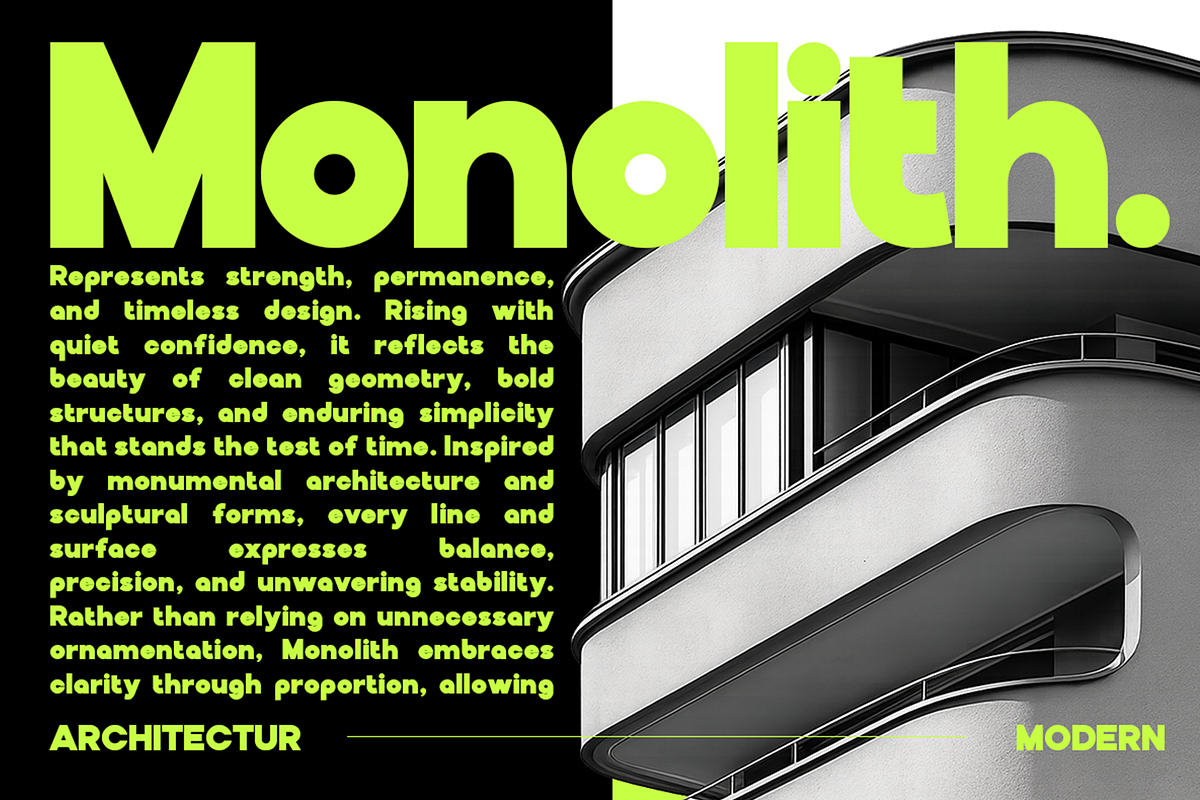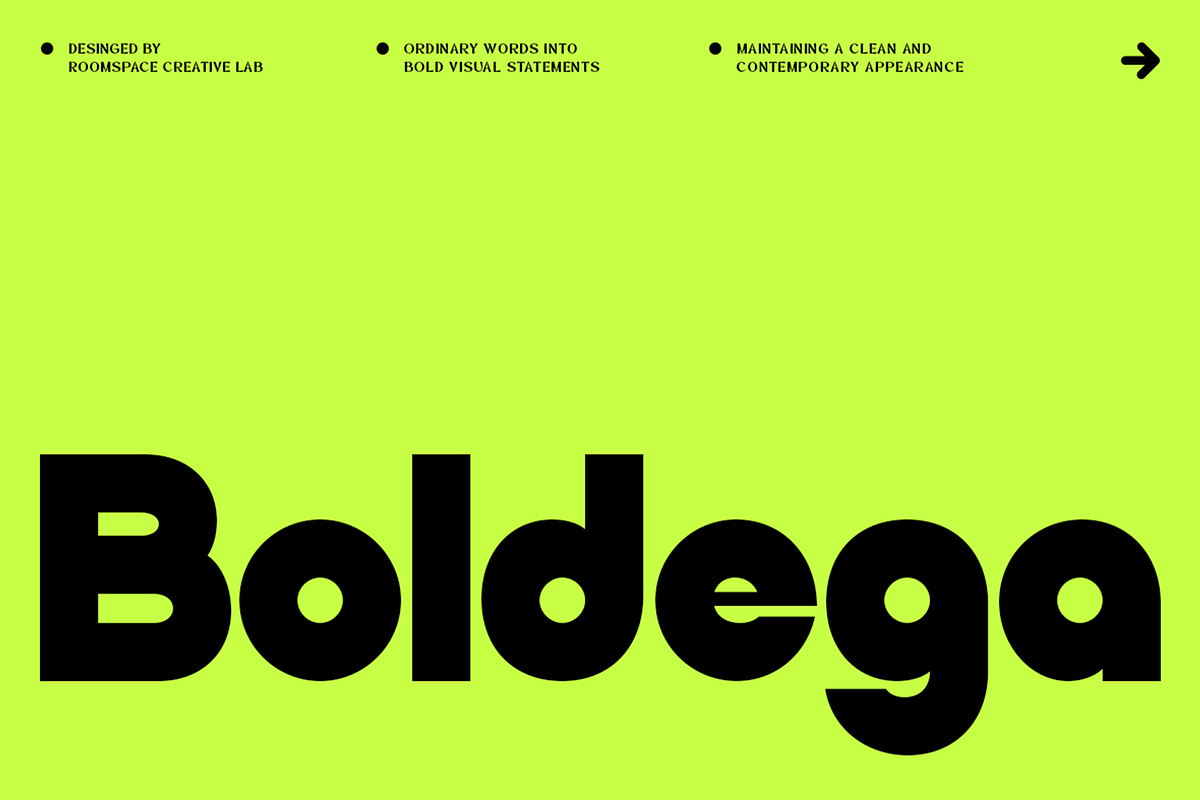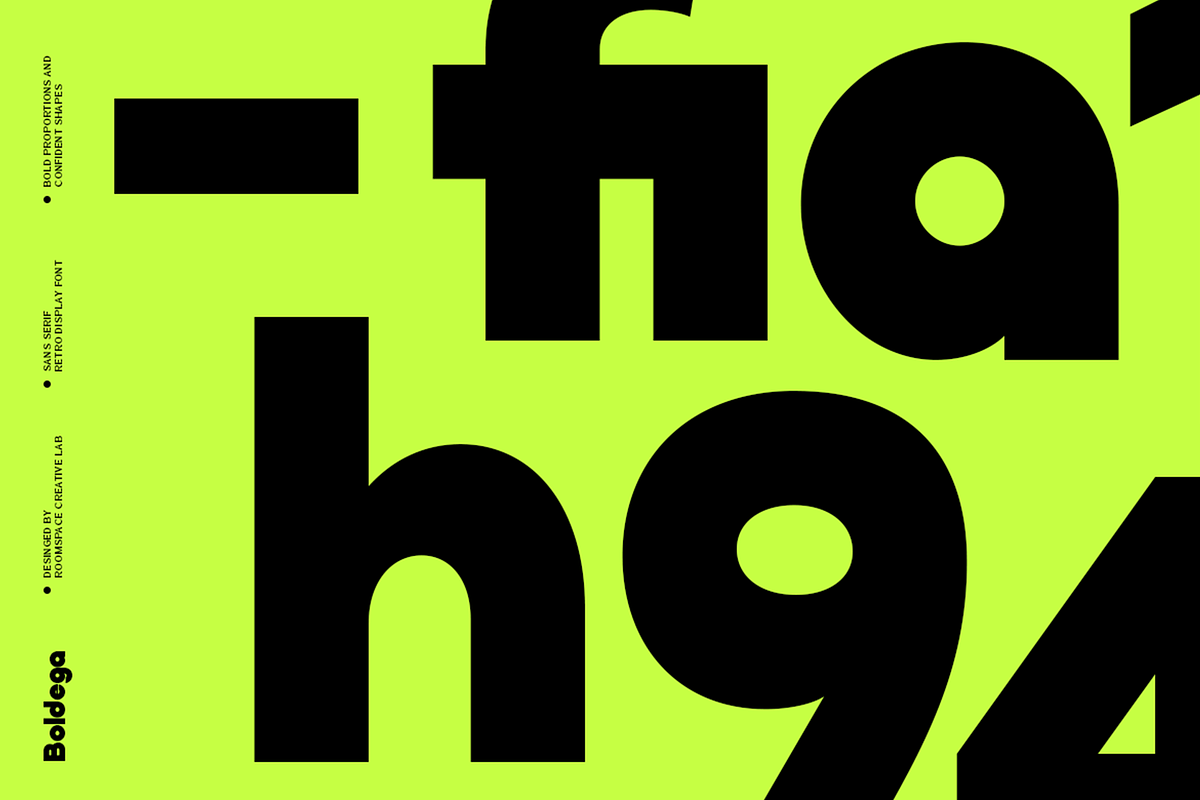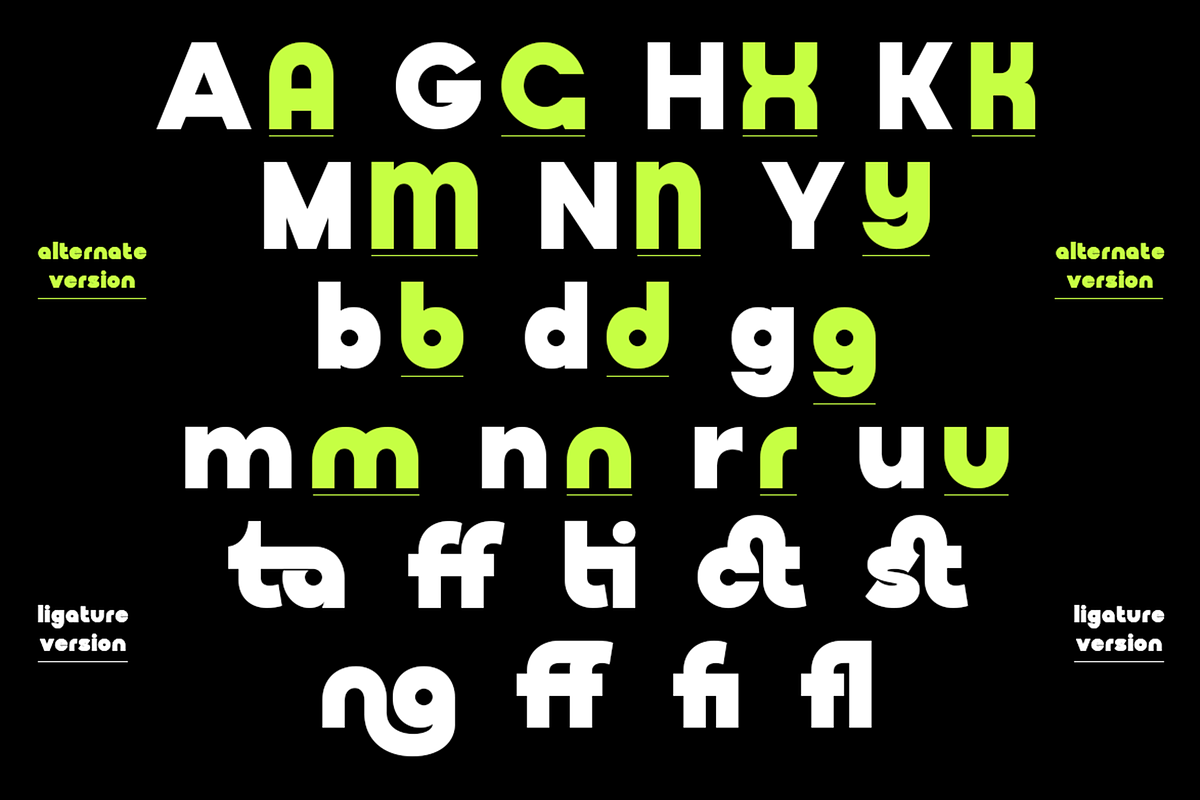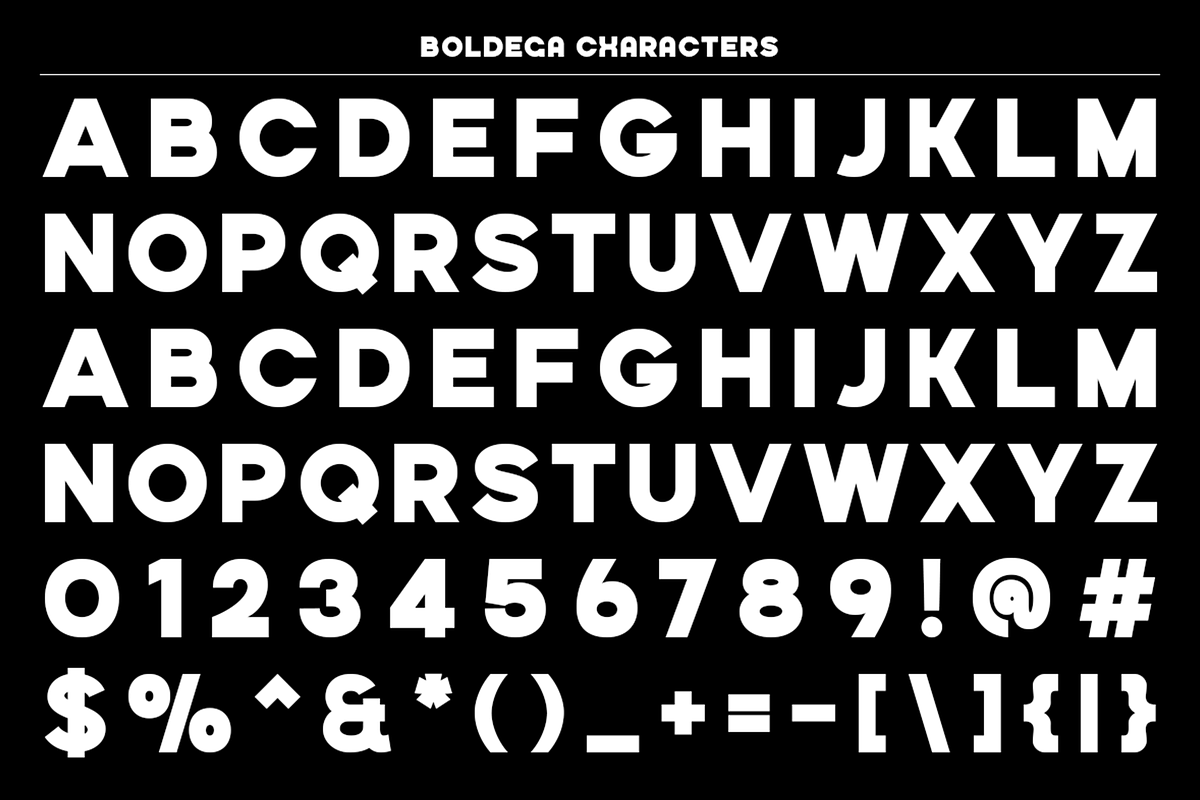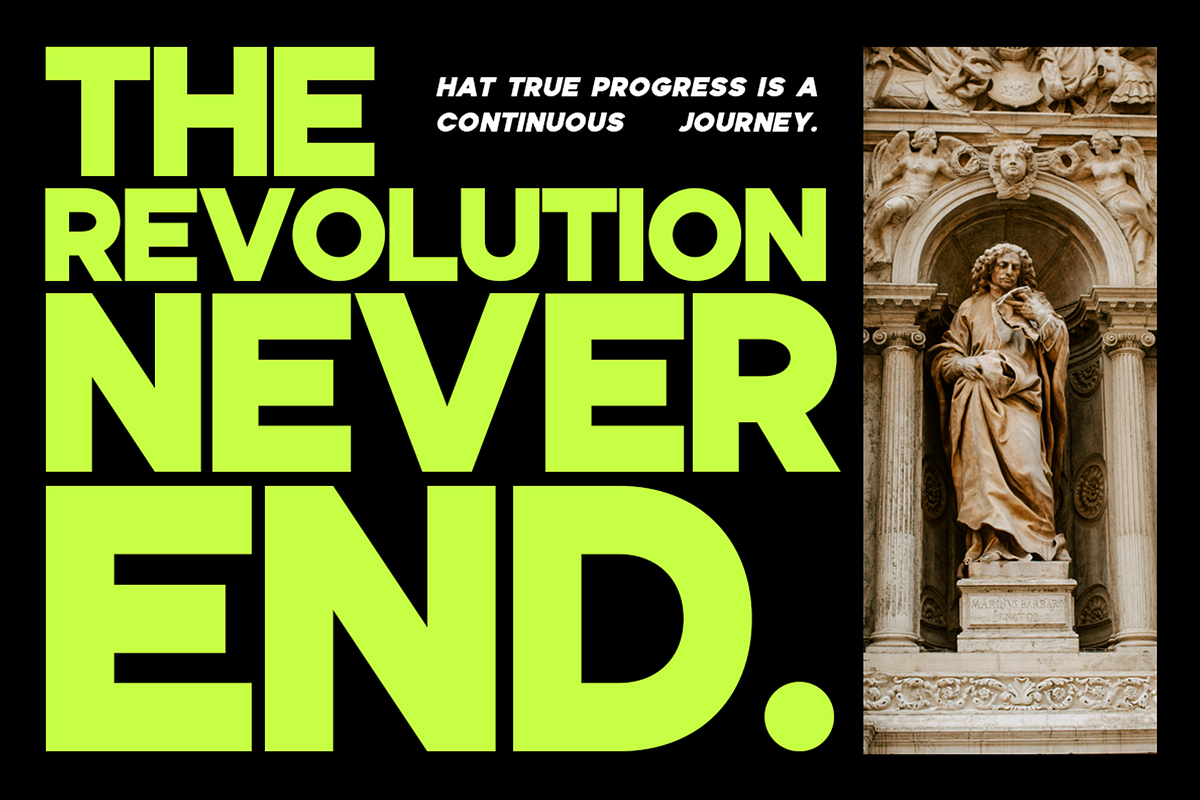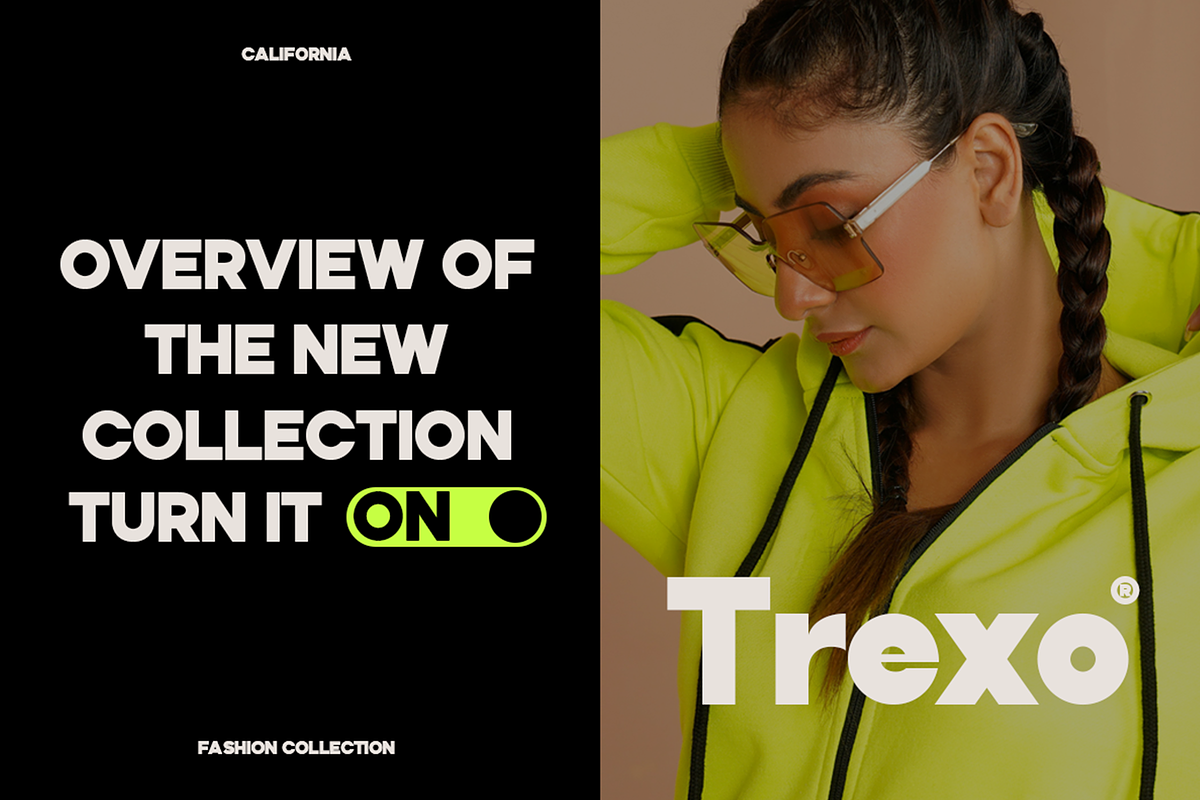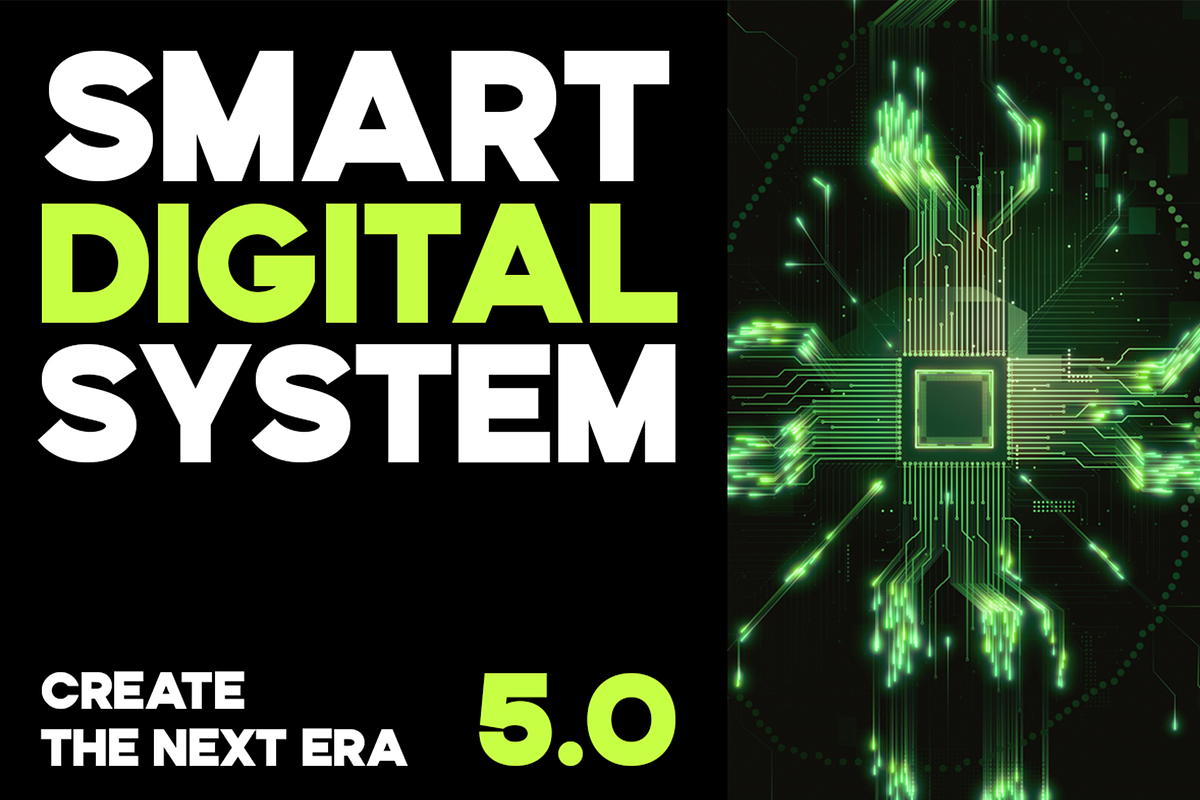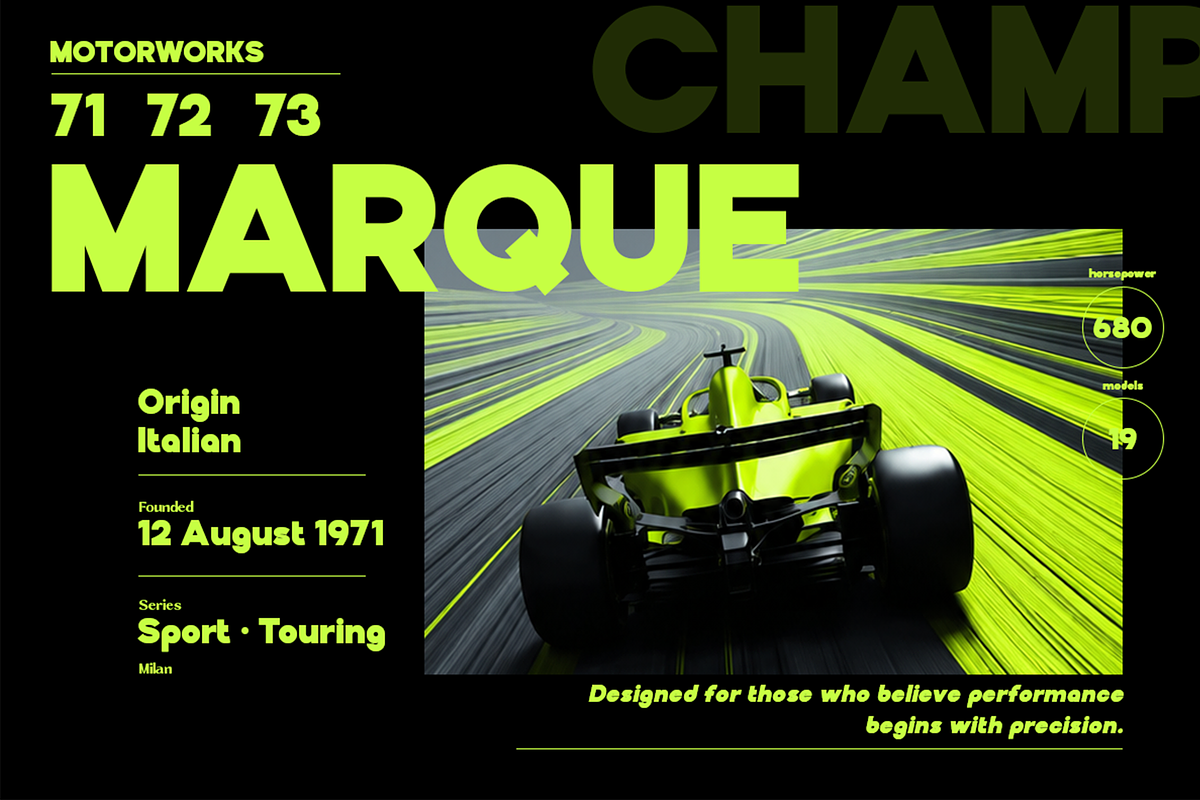
Boldega - Bold Geometric Display
Boldega is a bold geometric display typeface designed with heavy proportions, rounded geometric forms, and distinctive letter details. Its strong construction, clean shapes, and custom character variations create powerful headlines while maintaining a clean and contemporary appearance.
Designed primarily for display, Boldega is ideal for branding projects that require a bold, distinctive visual personality. Whether you're creating logos, posters, editorial layouts, fashion graphics, architecture presentations, motorsport graphics, technology visuals, packaging, advertising, or social media designs, this typeface delivers a strong visual presence without sacrificing clarity.
The family includes uppercase and lowercase characters, along with a collection of alternate characters and ligatures, allowing you to create more customized and expressive typographic compositions. These variations add flexibility for creating distinctive headlines, logos, and experimental display layouts.